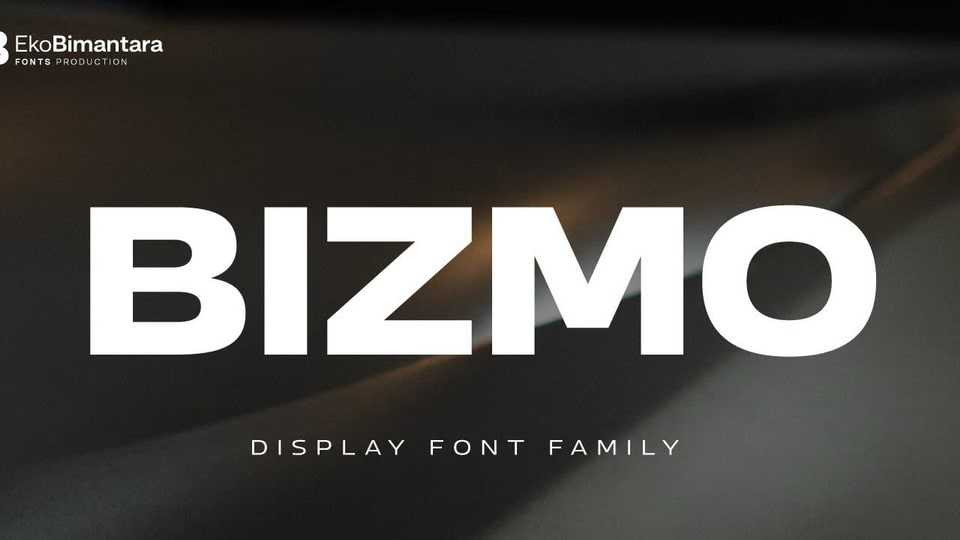
Download Bizmo font, a modern sans serif typeface meant for display use. Bizmo’s characteristic is in its wide letterform which is suitable for use in large or long spaces.